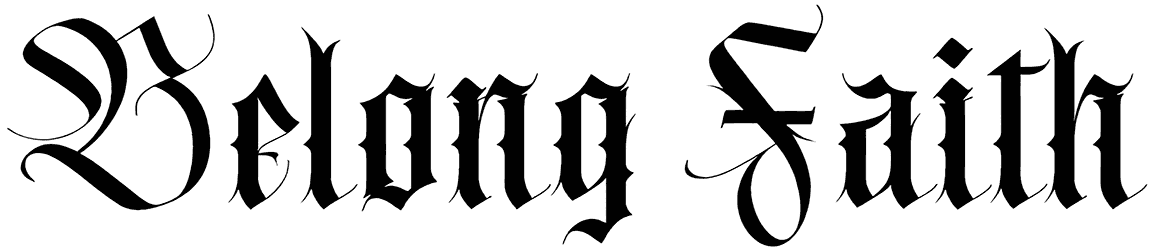
Belong Faith Font
If you want to make your design unforgettable, using a medieval font such as Belong Faith will be an ace pickup. The stunning, adorned letters are so good at creating a royal face for your intended idea. As a tattoo font, it can be used for numerous layouts, from artistic paint to a classic cafe sign.